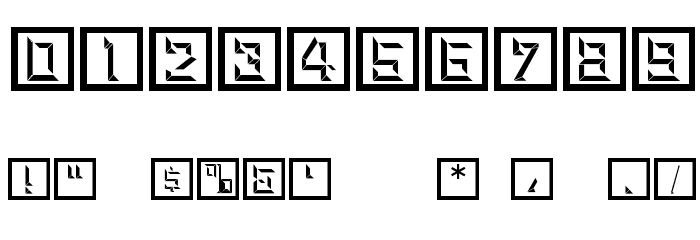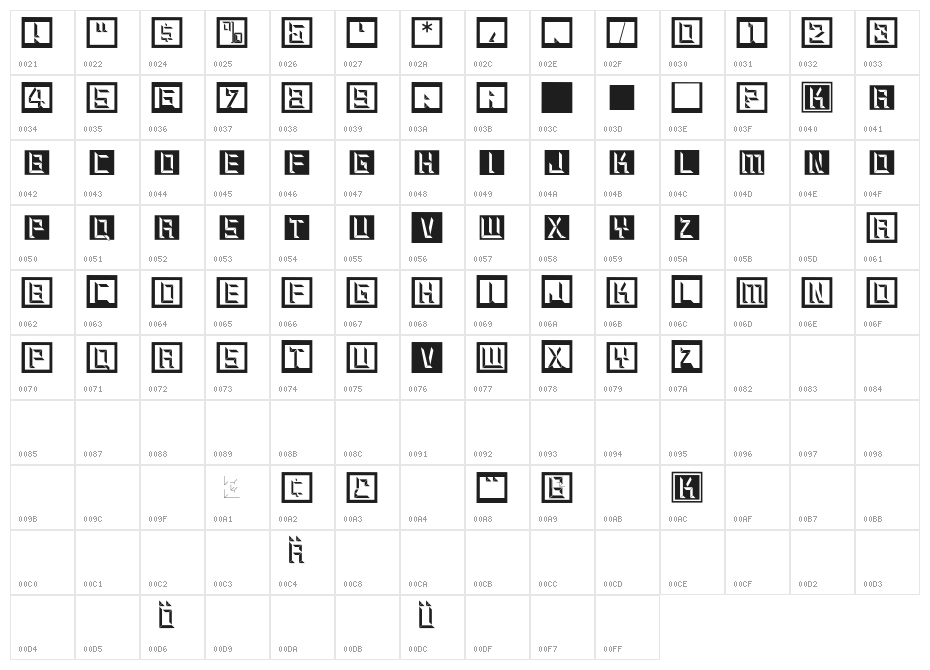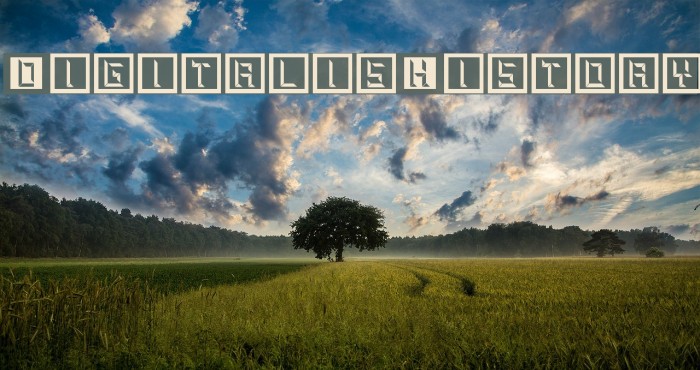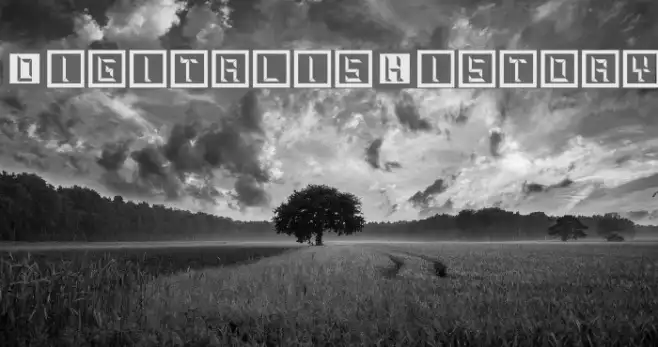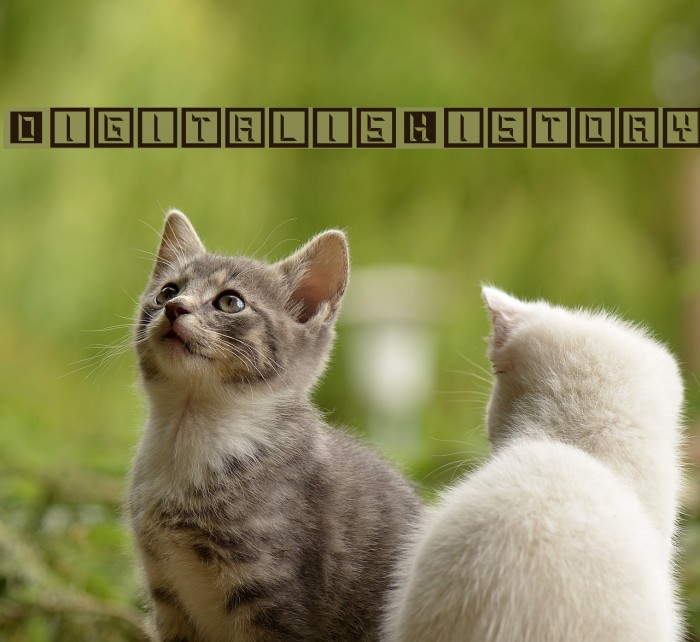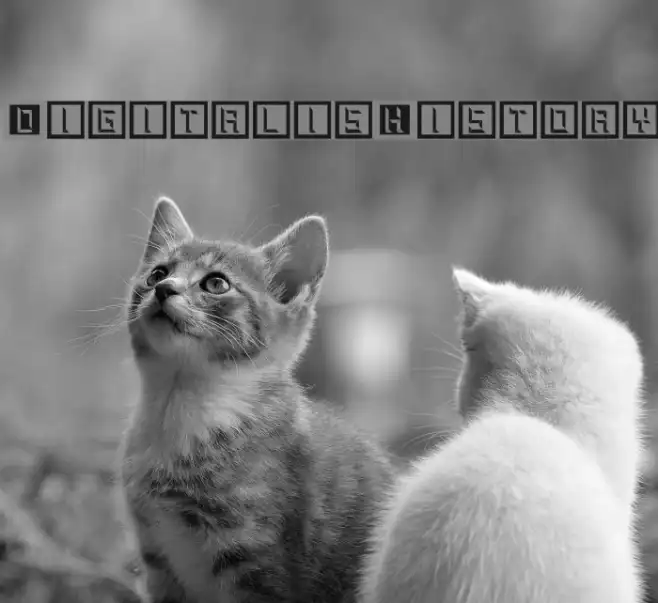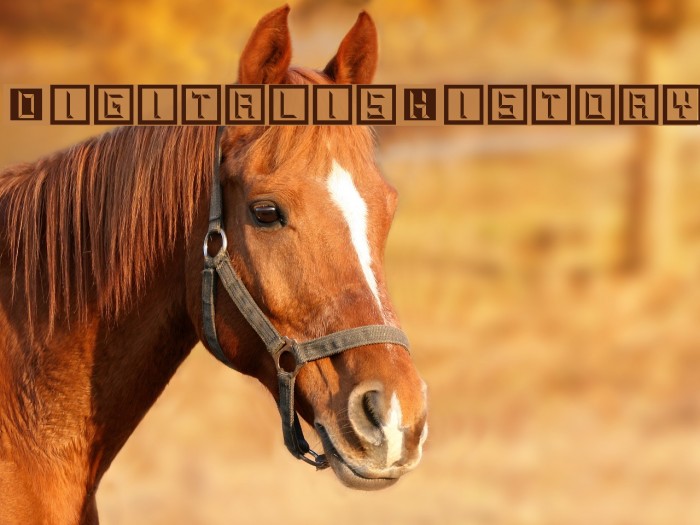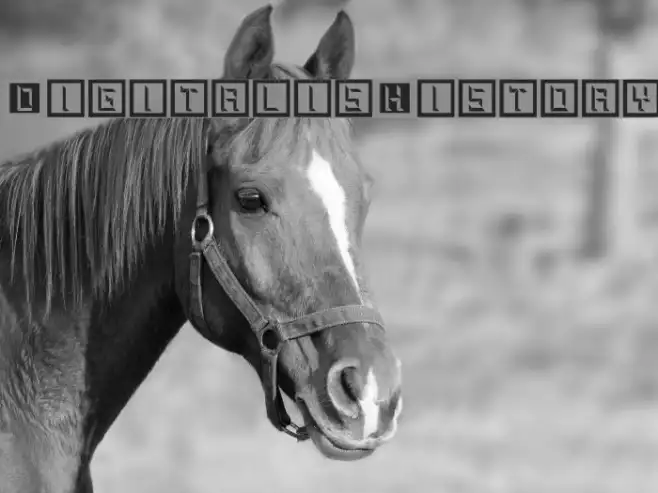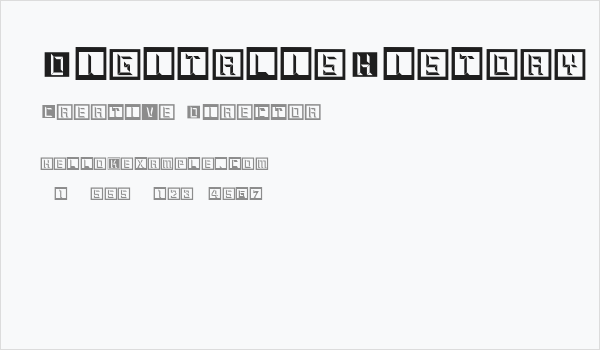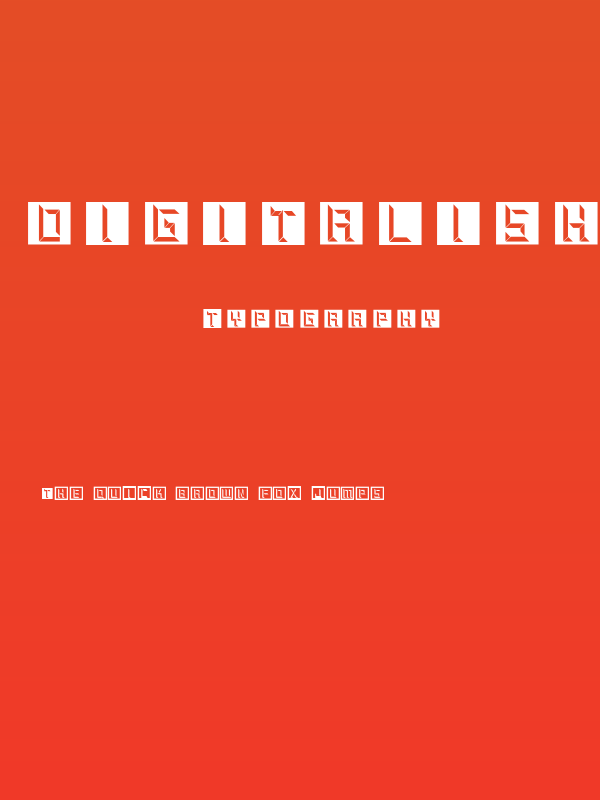
DigitalisHistory Font
DigitalisHistory Description
This font features a bold, geometric design with a distinct digital aesthetic. Each character is enclosed within a square, creating a uniform and structured appearance. The letters and numbers are composed of angular, fragmented shapes that give a futuristic and tech-inspired feel. The high contrast between the thick, black outlines and the white interior spaces enhances readability while maintaining a striking visual impact. The font's unique style makes it suitable for projects that require a modern and edgy look.
| Proposed Projects | Ideal for digital art, tech branding, video game design, and futuristic-themed posters. |